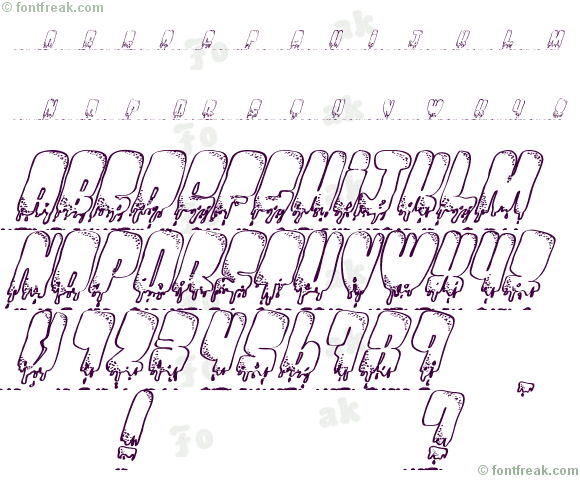
Fantom Better
Introducing the Fantom Better font by Maelle.K, a unique display typeface that effortlessly blends creativity and personality. This font falls into the decorative category, characterized by its playful and slightly distorted letterforms that evoke a sense of whimsy. The Fantom Better font features a medium stroke weight with varying contrast, providing a dynamic visual appeal that can capture attention. The spacing between the letters is well-balanced, allowing for readability while maintaining its artistic flair. Decorative elements, such as the rounded edges and irregular shapes, give this font a distinctive charm, making it stand out in various design contexts.
The Fantom Better font is ideal for a range of use cases, including eye-catching movie posters that demand a bold statement, trendy restaurant menus that invite patrons to explore, and creative wedding invitations that set the tone for a memorable event. Additionally, this font can enhance branding for small businesses looking to convey a fun and approachable image. Graphic designers and content creators will find it particularly valuable for projects that require a touch of originality and expressiveness.
What truly sets the Fantom Better font apart is its ability to convey personality and charm, making it a perfect choice for projects that need to resonate emotionally with their audience. For those seeking a distinctive typeface, the Fantom Better font free download is an option worth exploring.